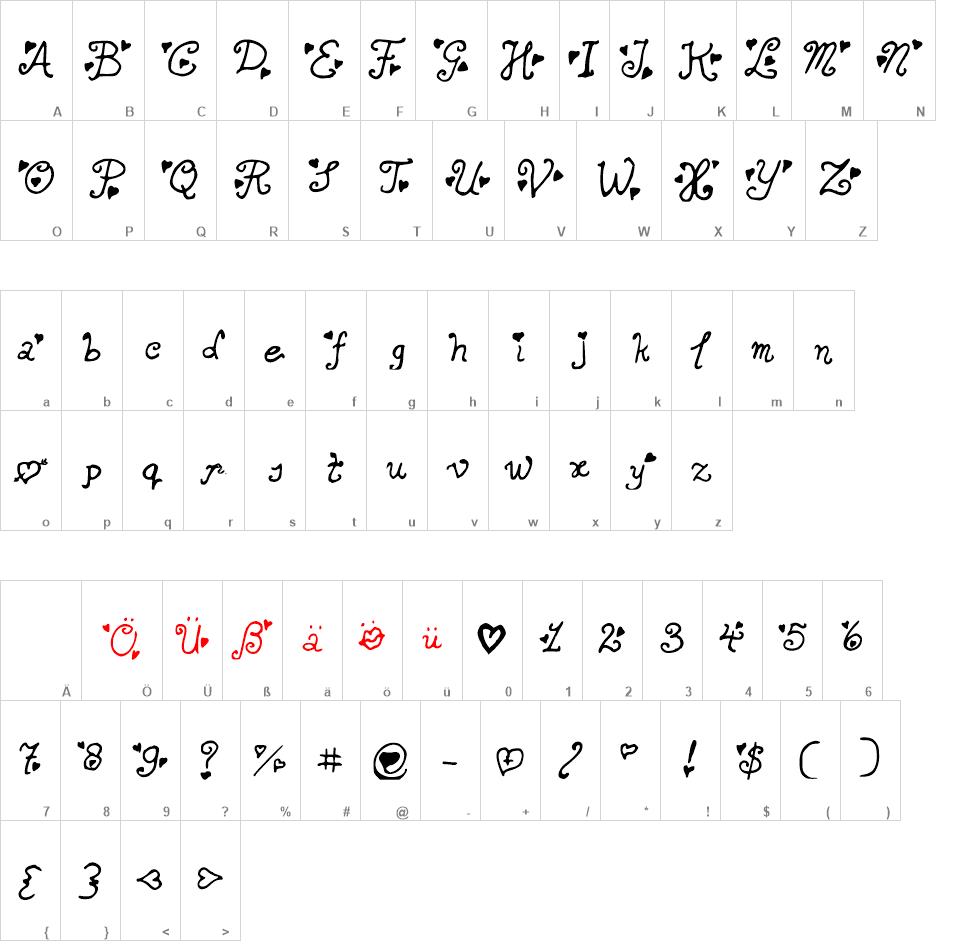
Secret Love Letters
Secret Love Letters font
Secret Love Letters
Doodle-like font for your love messages. Letters written by me, created into a font with MyScriptFont.com